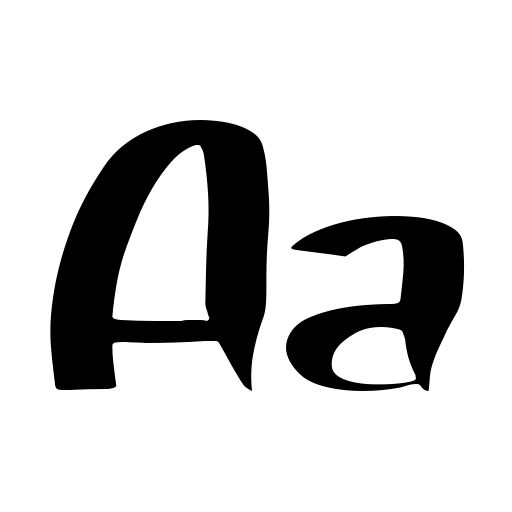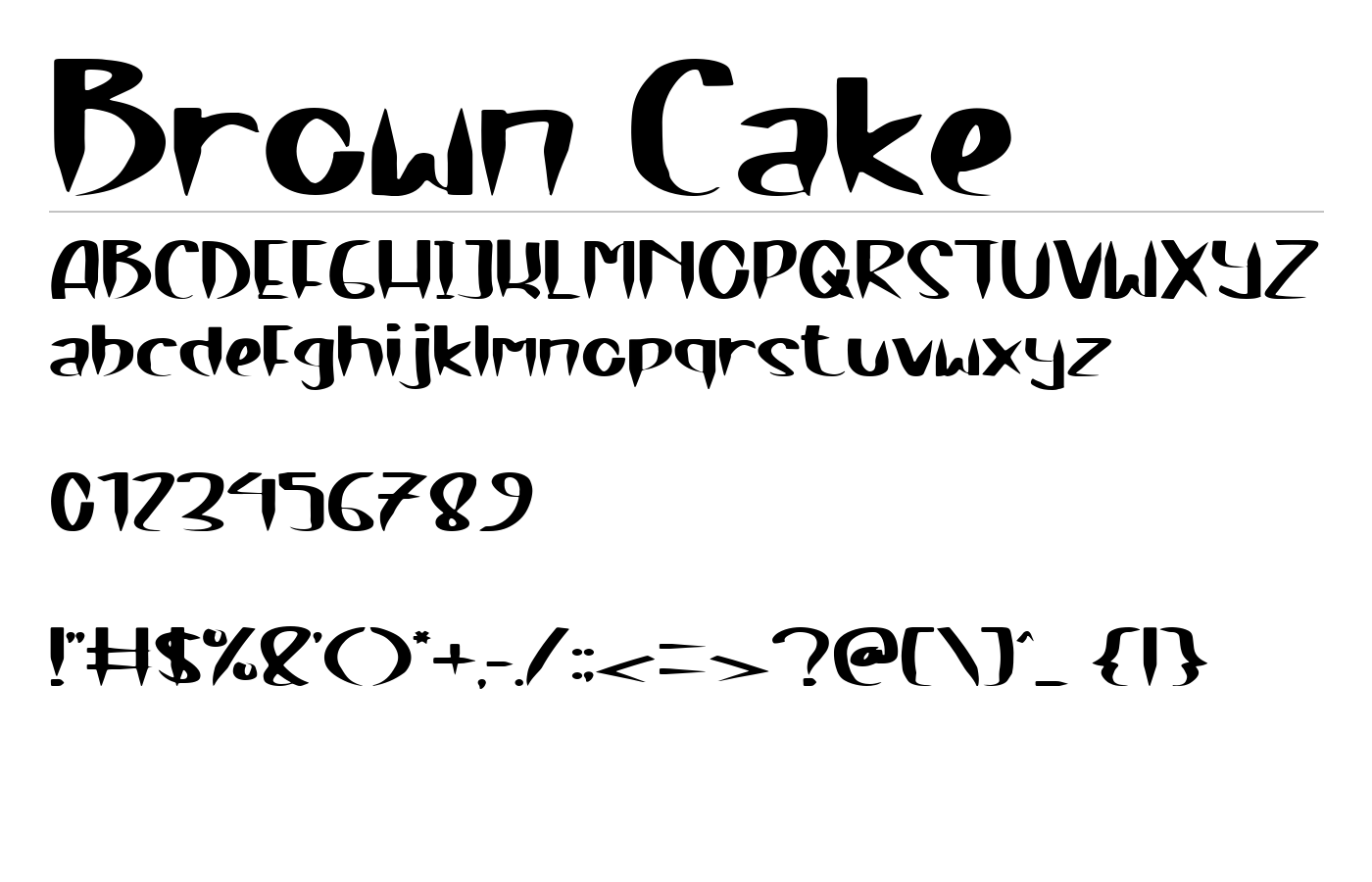
Brown Cake is a quirky, bold display font with a playful and slightly gothic vibe. Its irregular, sharp-edged letterforms and unique character shapes give it a distinctive, handmade feel that works well for creative logos, posters, and eye-catching headlines, especially in contexts aiming for a fun or alternative style. This font adds personality and energy to designs while maintaining strong readability for short bursts of text.
Brown Cake Font
About Brown Cake Font